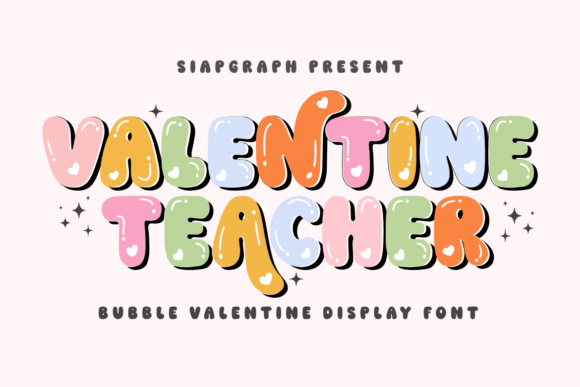
Valentine Teacher: A Playful Bubble Font
In the crowded landscape of digital communication, a single typeface can transform a mundane message into an unforgettable visual experience. For designers seeking to inject warmth and whimsy into their projects, Valentine Teacher offers a unique solution that bridges the gap between professional polish and playful charm. This bubble font is not merely a decorative element; it is a strategic asset for brands aiming to humanize their identity and connect with audiences on an emotional level.
The Power of Playful Typography in Modern Design
Typography serves as the voice of your brand, dictating tone before a single word is read. While sleek sans-serifs dominate corporate sectors, there is a growing demand for fonts that exude personality and approachability. Valentine Teacher stands out with its soft curves and bold appearance, creating an immediate sense of friendliness and joy. In visual design, this kind of typographic choice can significantly enhance user engagement by breaking down barriers between the brand and the consumer.
When integrated thoughtfully into a creative project, this font adds a dreamy touch that resonates well with modern aesthetics. It is particularly effective in contexts where trust and delight are paramount, such as educational platforms, lifestyle blogs, or children's product lines. By choosing a font that aligns with your brand values, you ensure that your visual hierarchy supports your core message rather than distracting from it.
Unlocking Creative Potential with PUA Encoding
One of the most significant advantages of using Valentine Teacher is its technical versatility. The inclusion of Private Use Area (PUA) encoding means that all special characters and decorative elements are easily accessible without requiring additional software or complex workarounds. For graphic designers working under tight deadlines, this feature streamlines the design workflow considerably.
Instead of searching for external clip art or manually drawing embellishments, creators can access a library of built-in icons directly within the font file. This capability allows for rapid prototyping and ensures consistency across various media. Whether you are designing a logo, a social media post, or a packaging label, having these assets at your fingertips empowers you to bring your ideas to life with greater efficiency and precision.
Practical Applications Across Design Disciplines
The versatility of Valentine Teacher extends far beyond simple headlines. Its robust structure and rounded forms make it suitable for a wide array of applications where visual impact is crucial. Here are some key areas where this font excels:
- Branding and Logo Design: Create memorable logos that stand out in a saturated market. The bold strokes of the font ensure scalability, making it legible on everything from business cards to billboards.
- Social Media Graphics: Capture attention in fast-scrolling feeds with eye-catching headlines. The playful nature of the typeface encourages interaction and shares among younger demographics.
- Packaging Design: Elevate product presentation with a tactile feel. When paired with the right color palette, the font suggests quality and fun, influencing purchasing decisions.
- Editorial and Web Design: Enhance readability and visual interest in blog posts, magazines, and landing pages. Use it for section headers to guide the reader through content effortlessly.
- UI and UX Design: Infuse digital interfaces with character. Buttons, call-to-action elements, and app icons benefit from the friendly aesthetic, improving the overall user experience.
Strategies for Effective Implementation
While Valentine Teacher is a powerful tool, like any creative asset, it requires careful consideration to maximize its impact. Consistency is key when building a strong brand identity. Ensure that the font complements your existing design system rather than clashing with other typographic choices. Pairing it with a clean, neutral sans-serif for body text often creates a balanced composition that maintains professionalism while highlighting the playful accents.
Readability remains a priority, even with decorative fonts. Avoid using the font for long paragraphs of text; instead, reserve it for headlines, short phrases, and impactful statements. Consider the context of your audience and the medium of delivery. A font that works beautifully on a high-resolution print poster might need adjustments for mobile screens to ensure clarity.
Furthermore, leverage the font's decorative elements to reinforce your narrative. If you are designing for a Valentine's Day campaign or a spring collection, the inherent themes of the font naturally align with the seasonal mood. However, do not overuse these extras. Strategic placement enhances the design, whereas clutter can dilute the message and confuse the viewer.
Ultimately, the choice of typography is a reflection of your commitment to quality and detail. By selecting a premium resource like Valentine Teacher, you invest in a design that communicates clearly and emotionally. Thoughtful design choices elevate your work from functional to exceptional, ensuring that your brand leaves a lasting impression on every audience member who encounters it.